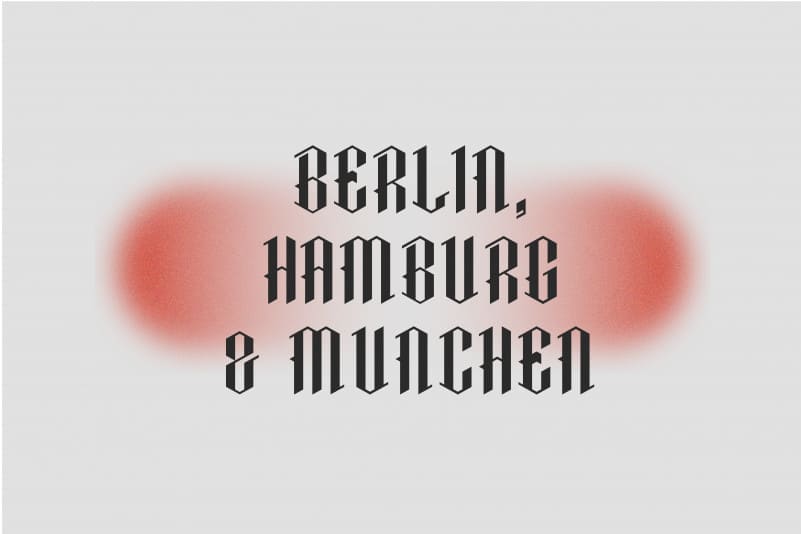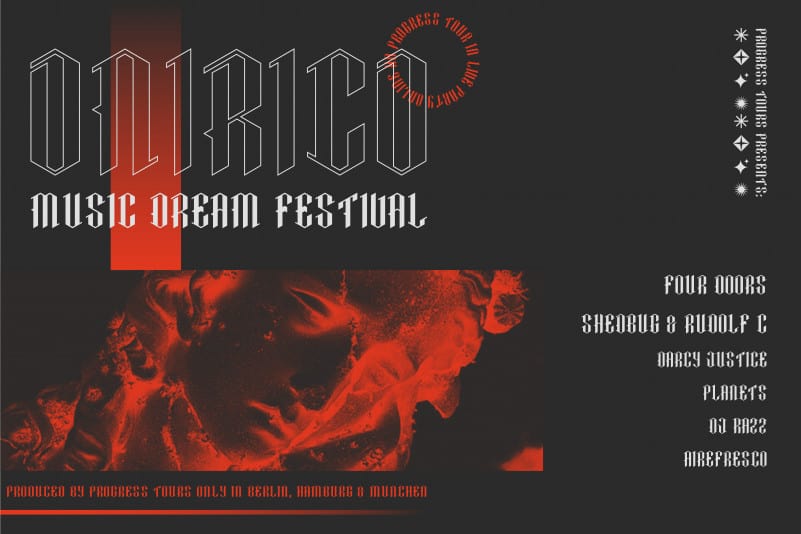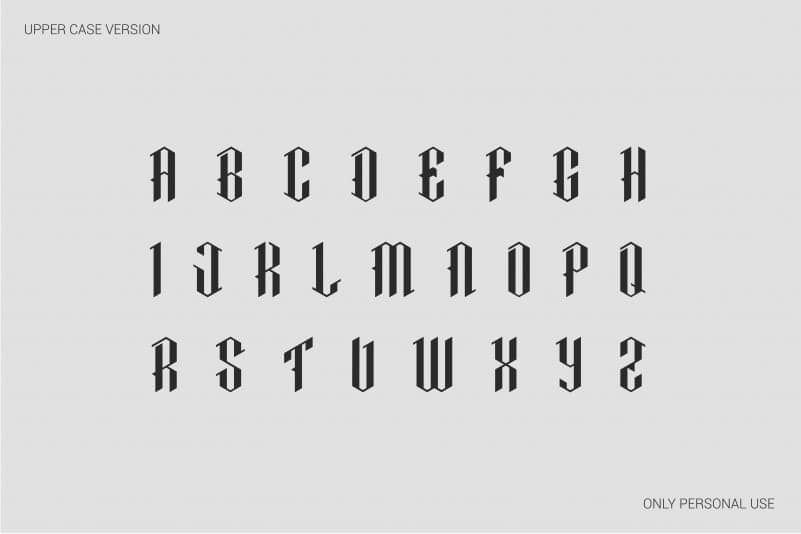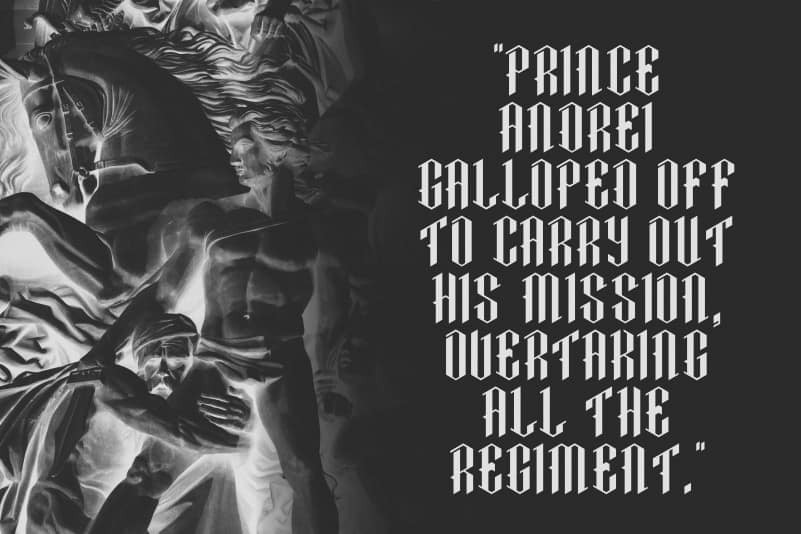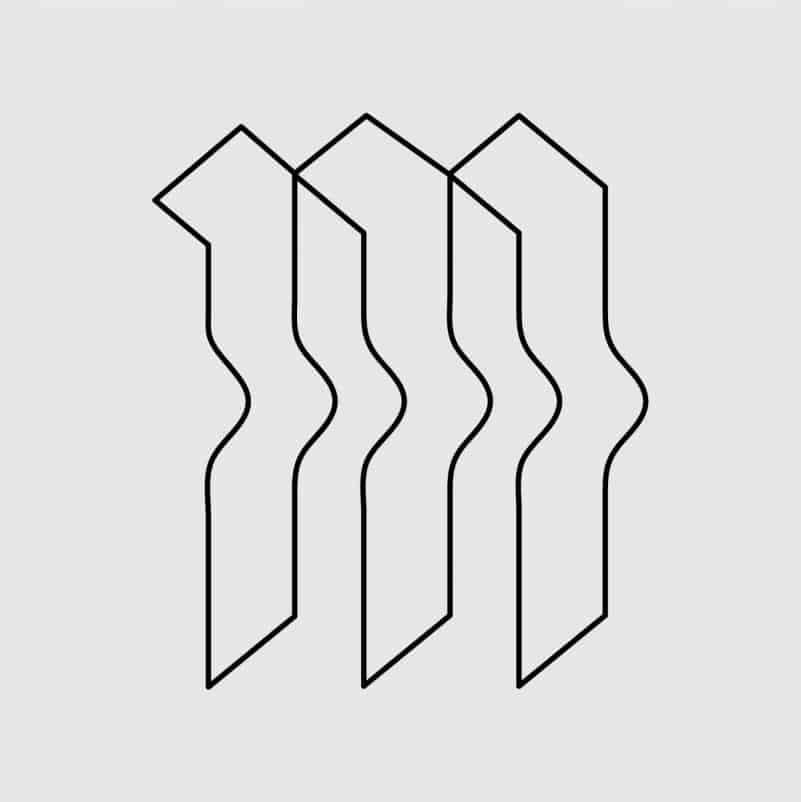
Brecha Blackletter Display Font
Brecha Blackletter Display Font is a blackletter typeface, with a modern style that uses strong angles and straight shapes to create a perfect display typeface for posters, editorial titles, covers and designs with a lot of personality.